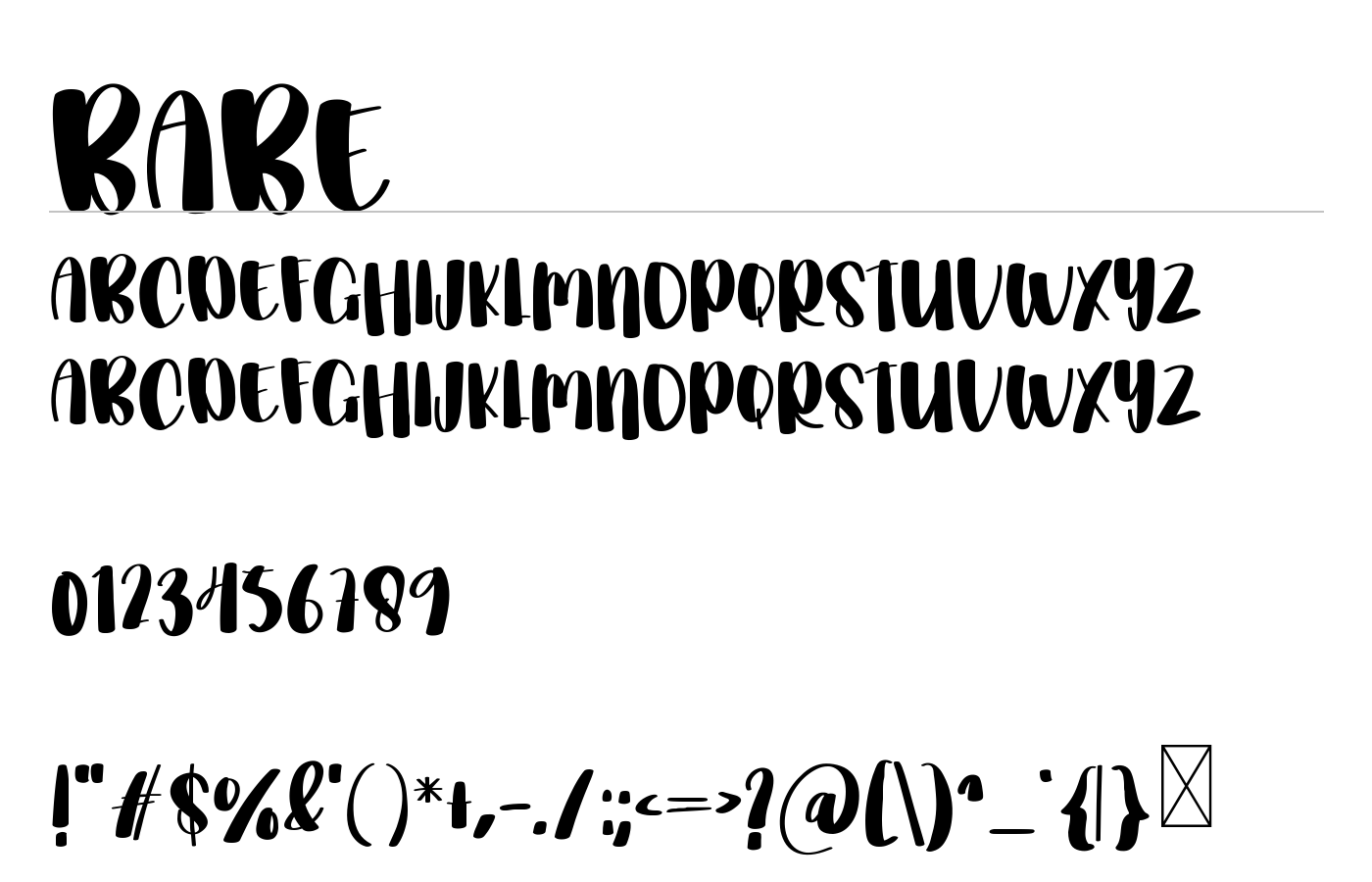
Babe Font is a playful and bold handwritten typeface characterized by its thick, brush-like strokes and lively, uneven letterforms. Its tall, condensed shapes and casual flair make it ideal for fun, creative projects such as logos, posters, and packaging that aim to convey a friendly, approachable vibe. This font works best in display settings where its unique, energetic personality can shine and add charm to fashion branding or youth-oriented designs.
Babe Font
About Babe Font